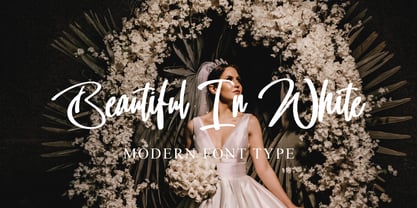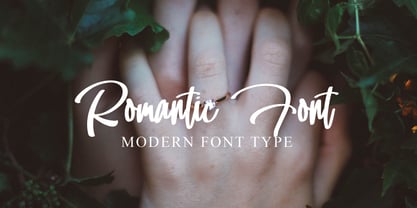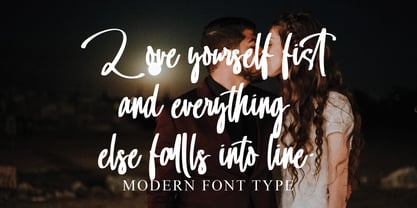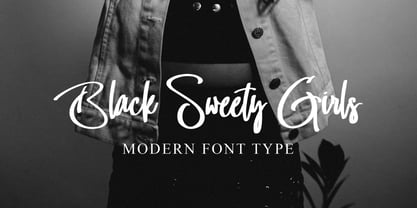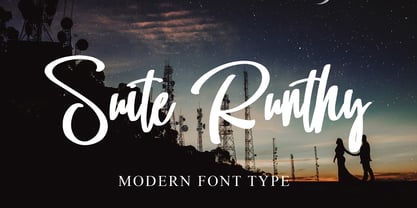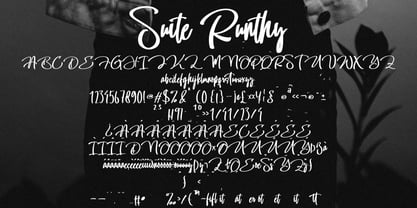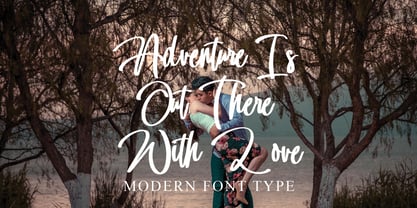
Suite Runthy
by Naatypo
The Suite Runthy Font Family was designed by Kurnia Elis Setyorini and published by Naatypo. Suite Runthy contains 1 styles. More about this family
Discover the dynamic and vivacious Suite Runthy font, a master blend of boldness and readability guaranteed to make your designs pop. This compelling typeface effortlessly elevates simple t-shirt prints, impactful quotes, captivating wall decor, enticing food labels, and standout ad banners to new heights of style and appeal. Perfectly suited for adding charm to your social media presence, personalizing your diary entries, or creating engaging greeting cards, Suite Runthy adds an irresistible charm. Surrender to creativity with Suite Runthy and watch the mundane transform into the extraordinary.
Designers: Kurnia Elis Setyorini
Foundry: Naatypo